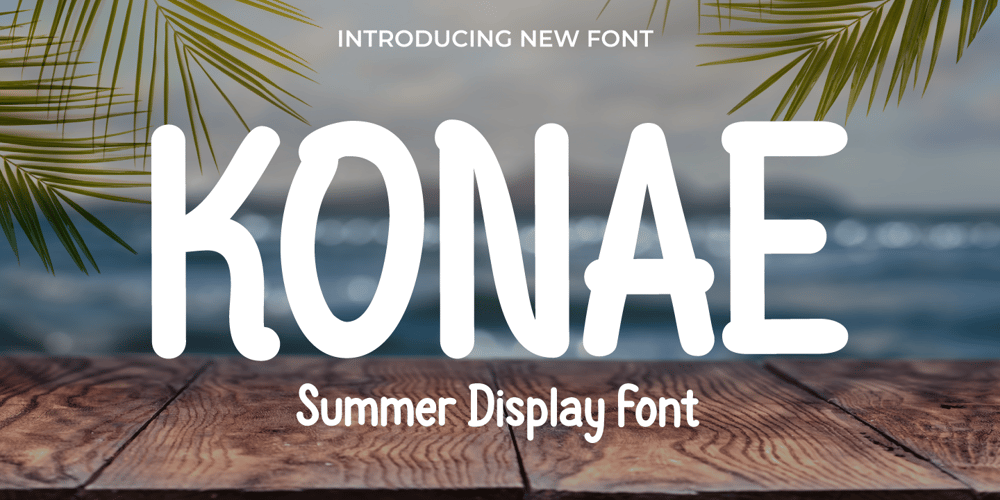
Konae Font Family was designed by Rozikan and published by Twinletter. Konae contains 1 styles and family package options. Introducing “KONAE Font” – Your Passport to a Summer Wonderland.KONAE Font is your key to unlocking the magic of summer in your design projects. With its playful and vibrant summer theme, this font is the perfect choice for adding a touch of the season’s joy to your creations.What’s Included : File font All glyphs Iso Latin 1 Alternate, Ligature Simple installations PUA Encoded Characters – Fully accessible without additional design software. Fonts include Multilingual support